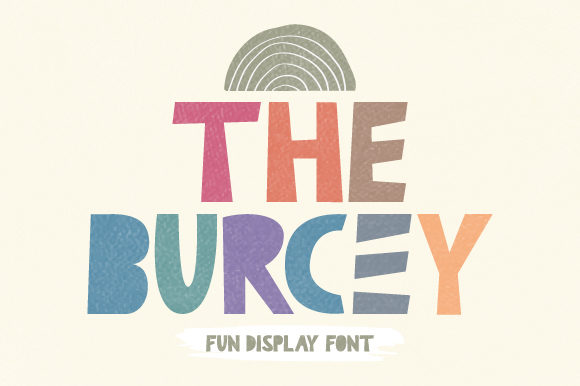
Behold, The Burcey Font - The Quintessential Playful and Cheerful Display Font!
Step into a world of playful creativity with The Burcey Font, the ultimate display font that adds enchanting charm to any project. Inspired by the exuberance of childhood, The Burcey Font is a delightful blend of fun and authenticity, making it the perfect choice for designs that demand attention.
Embark on a creative adventure with The Burcey Font and watch your words come to life. Its whimsical and joyous spirit will infuse your designs with an irresistible charm, captivating your audience and ensuring that your message leaves a lasting impression. Whether you're designing for children's activities, educational projects, or playful marketing campaigns, The Burcey Font is your go-to choice for injecting a sense of pure joy and wonder.
With its unique character and easy-to-read style, The Burcey Font is a versatile performer that excels in both headlines and body text. Its well-crafted letterforms and harmonious spacing ensure effortless readability, making it a favorite among designers seeking to create designs that communicate with clarity and impact. Its playful personality shines through, adding a touch of whimsy to your designs that will leave a smile on your face.
Elevate your designs to new heights with The Burcey Font, the display font that embodies the magic of childhood. Let your creativity soar as you explore endless possibilities, crafting designs that ignite imagination and spread joy. Embrace the playful spirit of The Burcey Font and watch your projects come alive with an infectious energy that captivates and inspires.